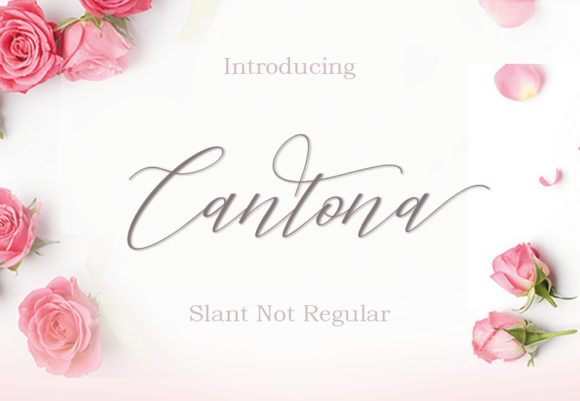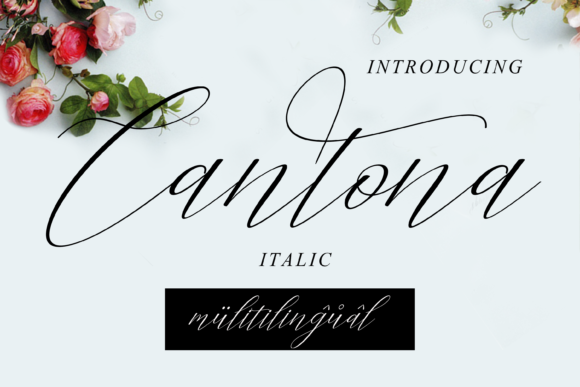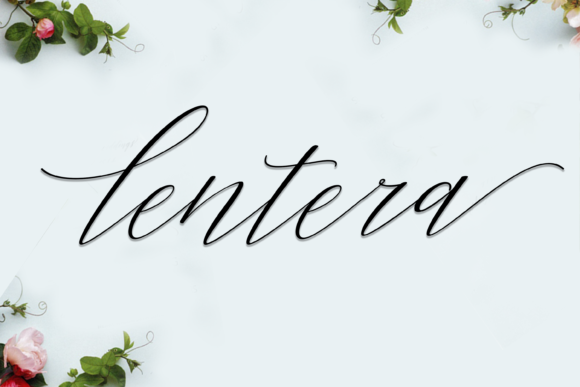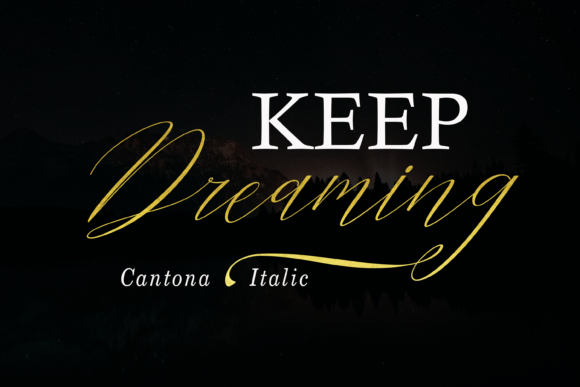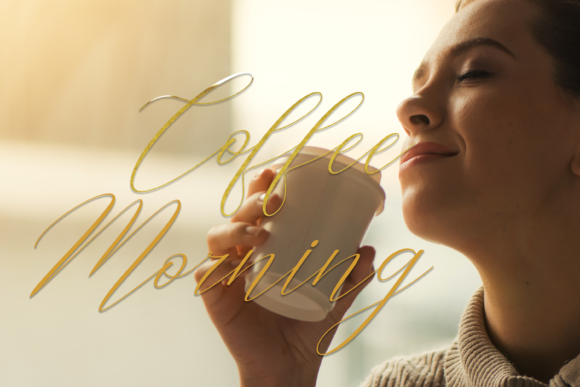
Cantona Font
About Cantona Font
The Cantona is a handwritten calligraphy font. It had a dancing baseline which will give your designs a classic and elegant touch.
It can be used for various purposes such as headings, signatures, logos, wedding invitations, t-shirts, letterheads, signage, labels, news, posters, badges, and much more!